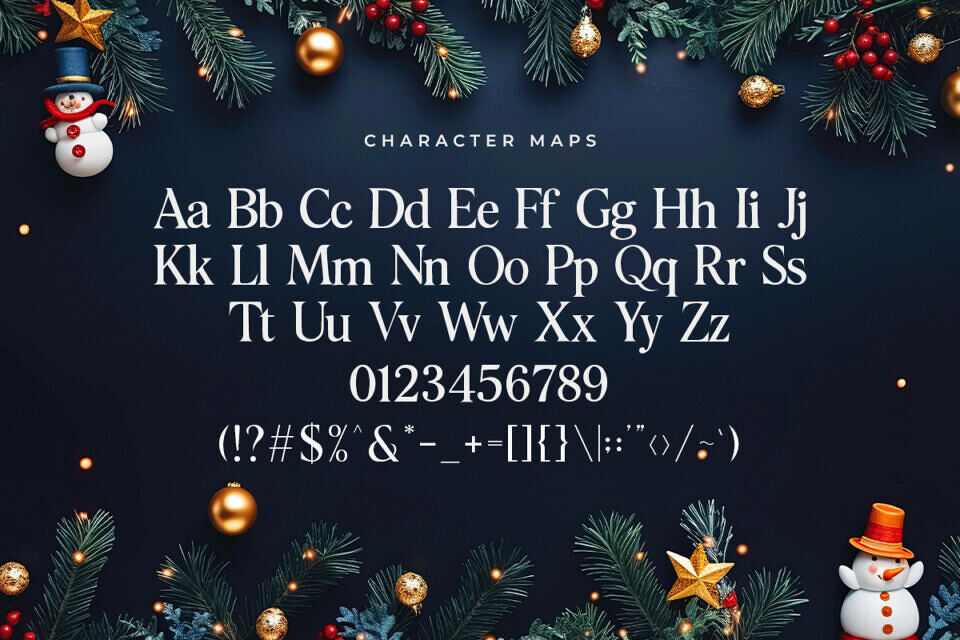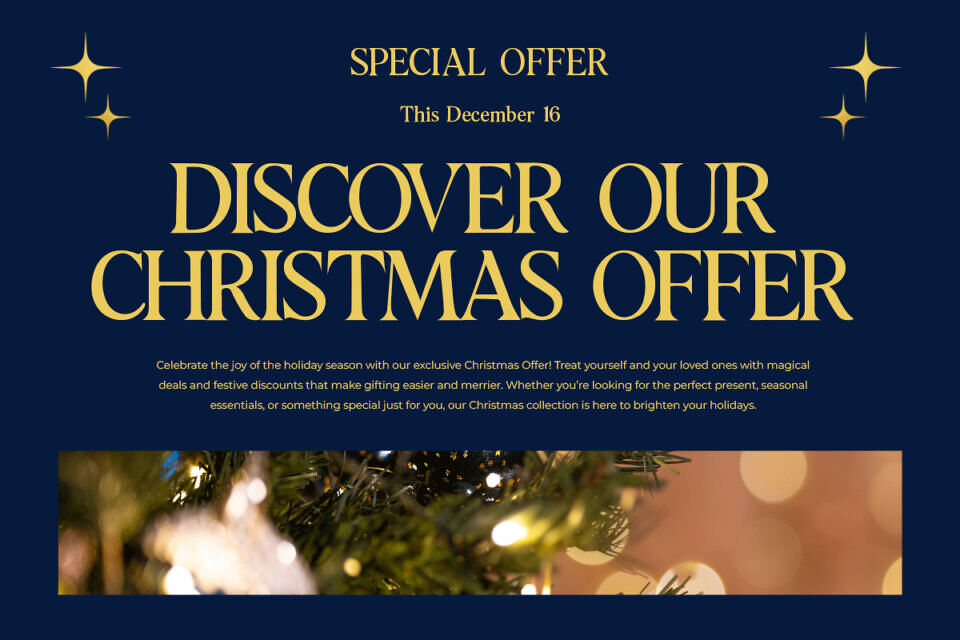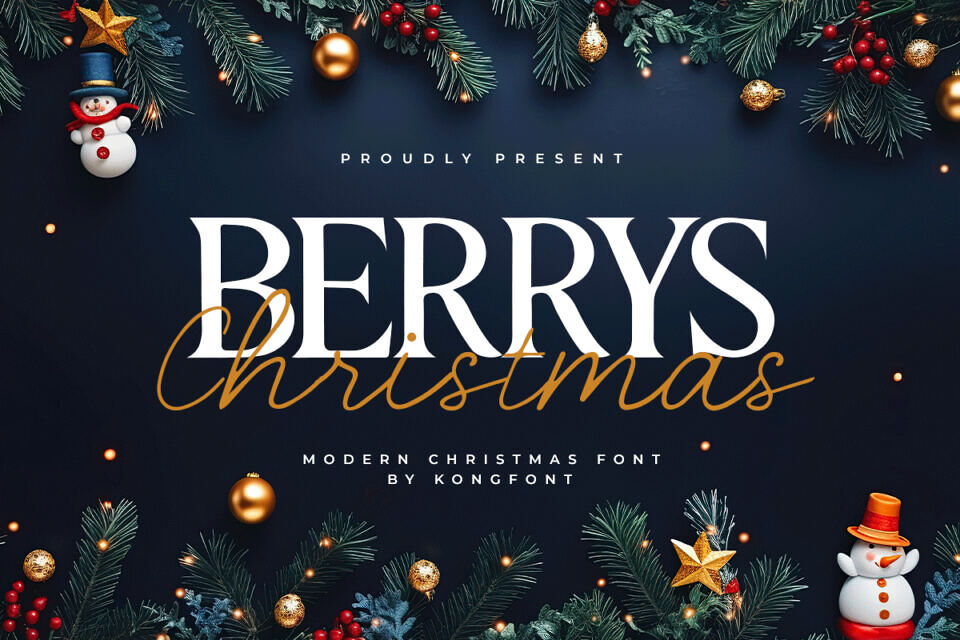
Berrys Christmas Font
Berrys Christmas is a Modern Christmas Font Duo by Kong Font Studio. Berrys Christmas was designed to increase the variety of options available. It looks aesthetic, elegant, and smooth.